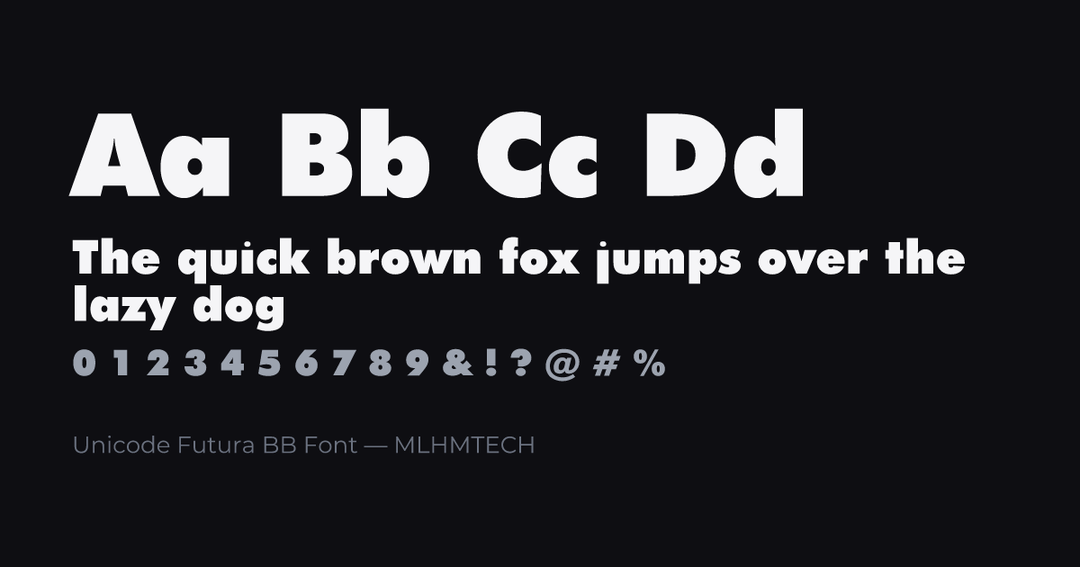
Unicode Futura BB Font
Unicode Futura BB is a geometric sans-serif font with a clean, modern look. Ideal for headlines, logos, and branding projects.
Unicode Futura BB is a geometric sans-serif font that brings a clean, modern aesthetic to your designs. Its balanced letterforms and consistent stroke widths make it highly legible at various sizes, from small text to large display headings.
Use it for branding, editorial layouts, or any project that requires a timeless, geometric typeface. Its versatility makes it a valuable addition to your font library.